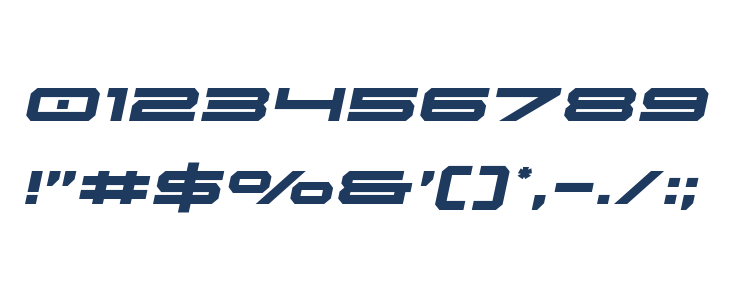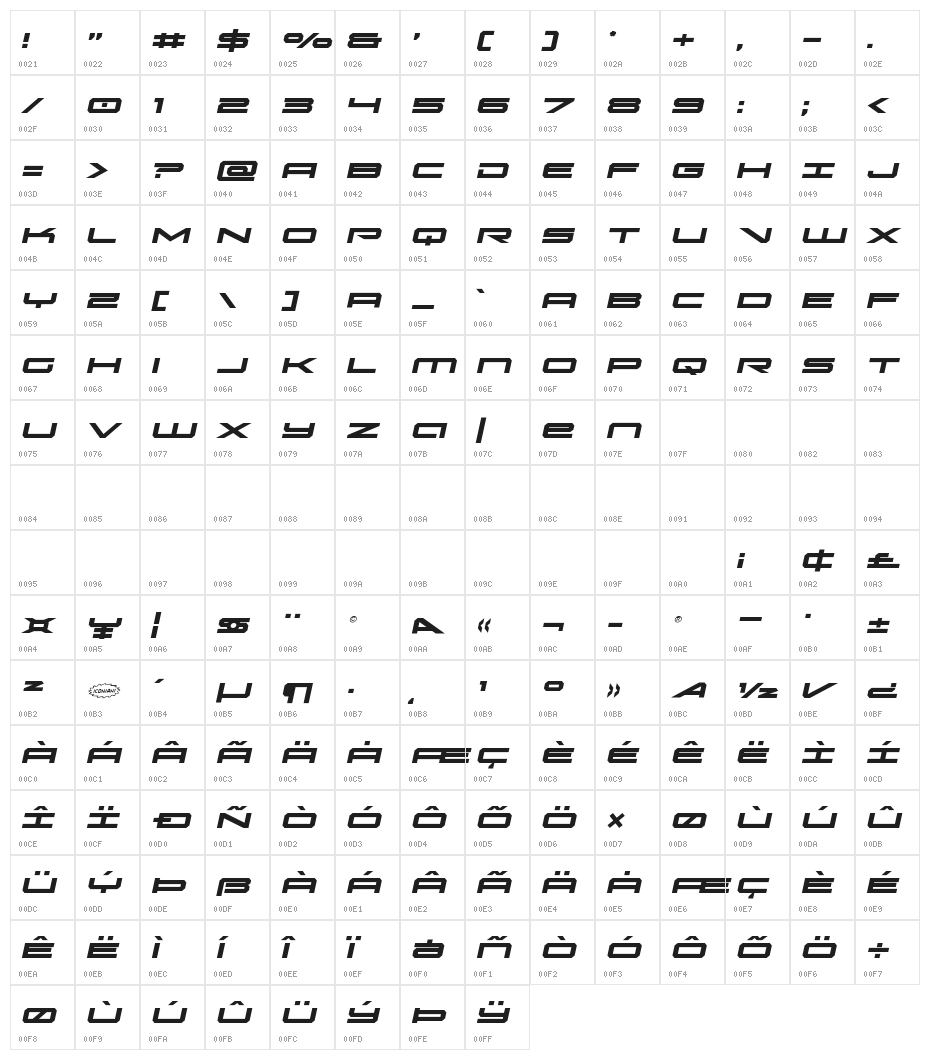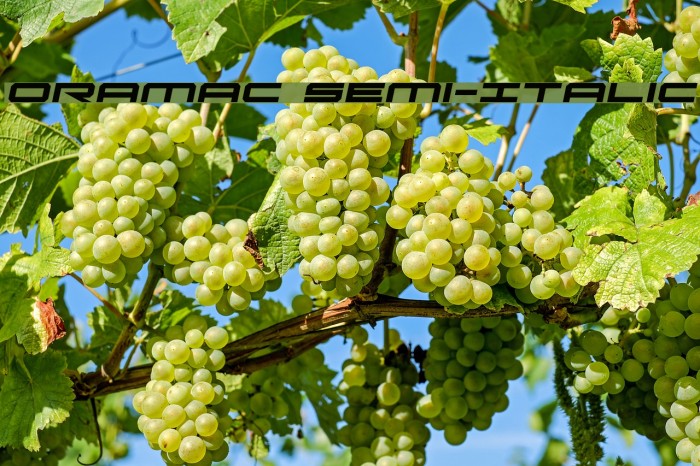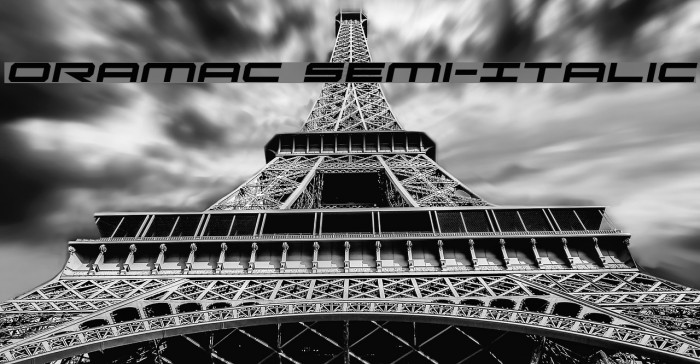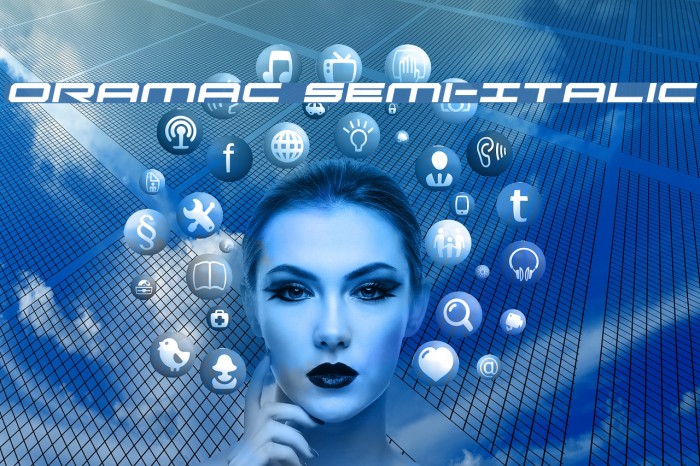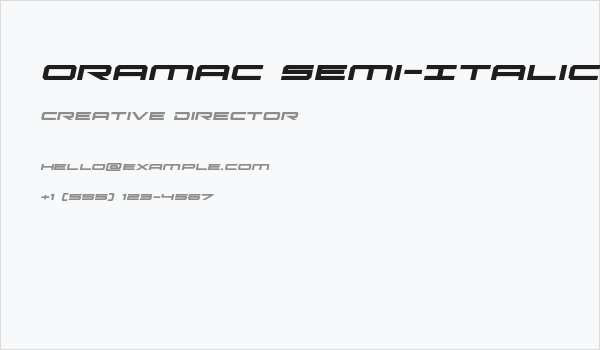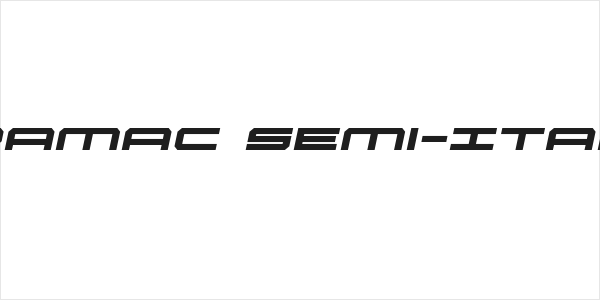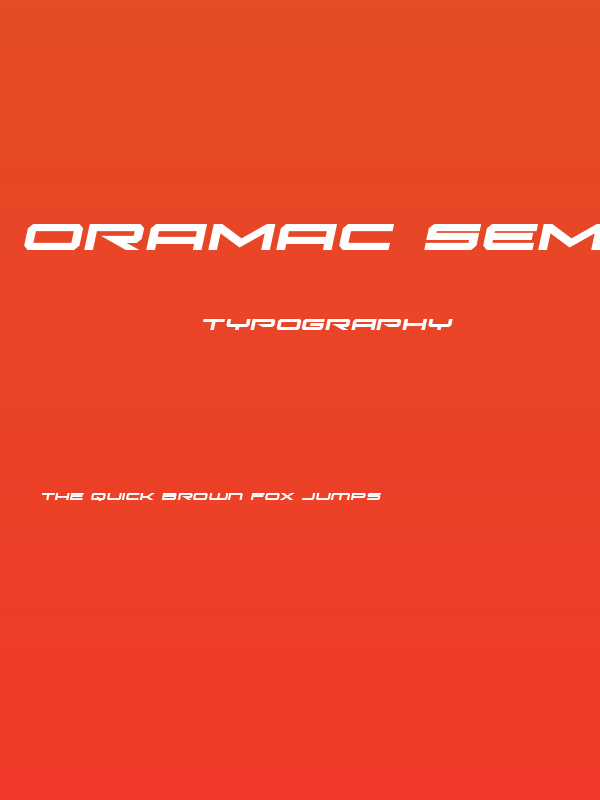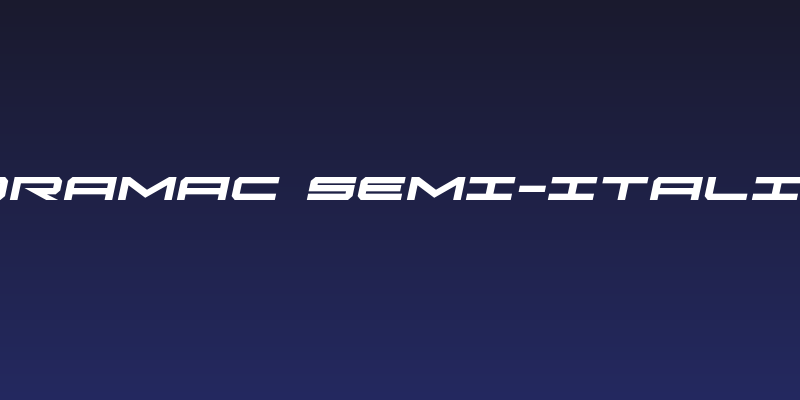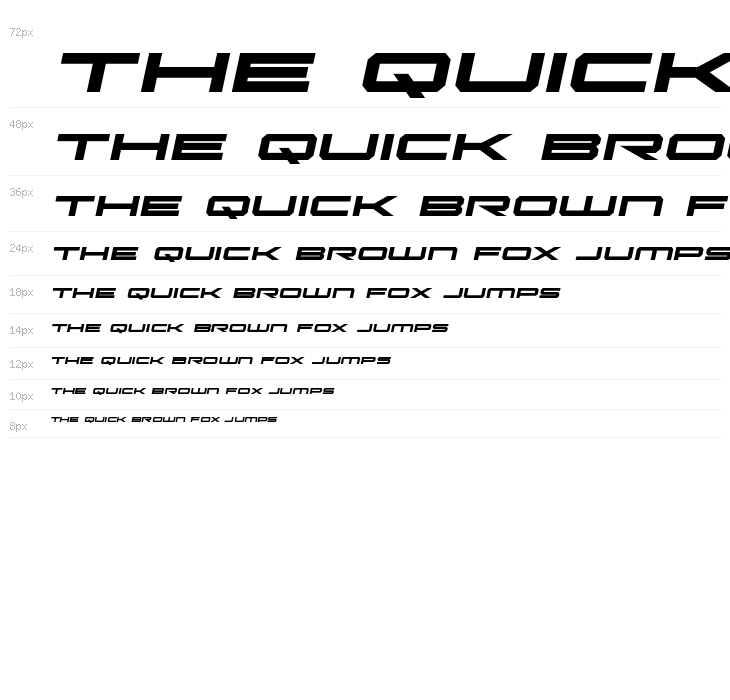
Oramac Semi-Italic Font
Oramac Semi-Italic Description
This font features a sleek, modern design with a semi-italic slant, giving it a dynamic and forward-moving appearance. The characters are constructed with clean, angular lines and a geometric structure, providing a futuristic and technical feel. The uppercase and lowercase letters maintain a consistent style, with the lowercase slightly smaller in size but equally bold in presence. The numerals and special characters are designed to match the overall aesthetic, ensuring uniformity across all text. This font's unique style makes it suitable for projects that require a contemporary and innovative look.
| Proposed Projects | Ideal for technology branding, sports team logos, futuristic posters, and digital interfaces. |